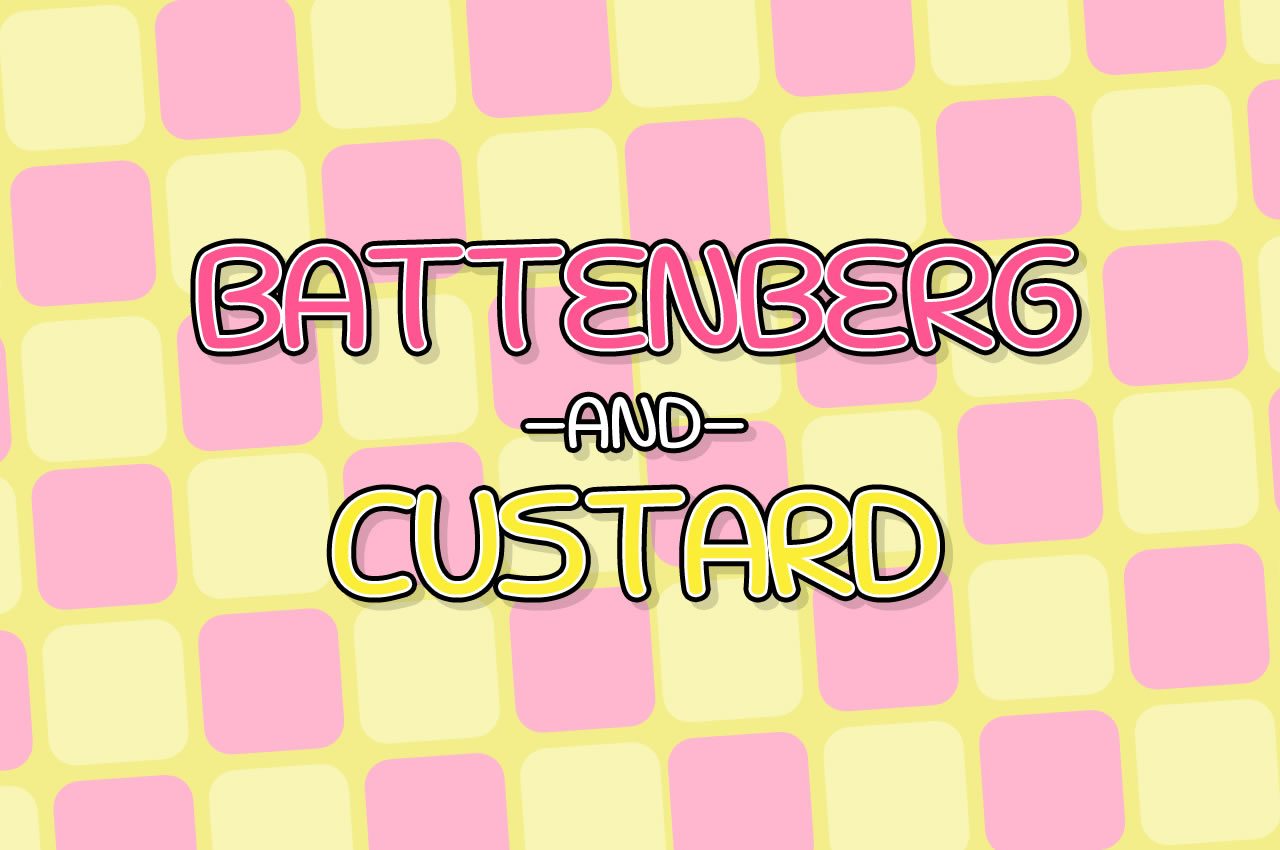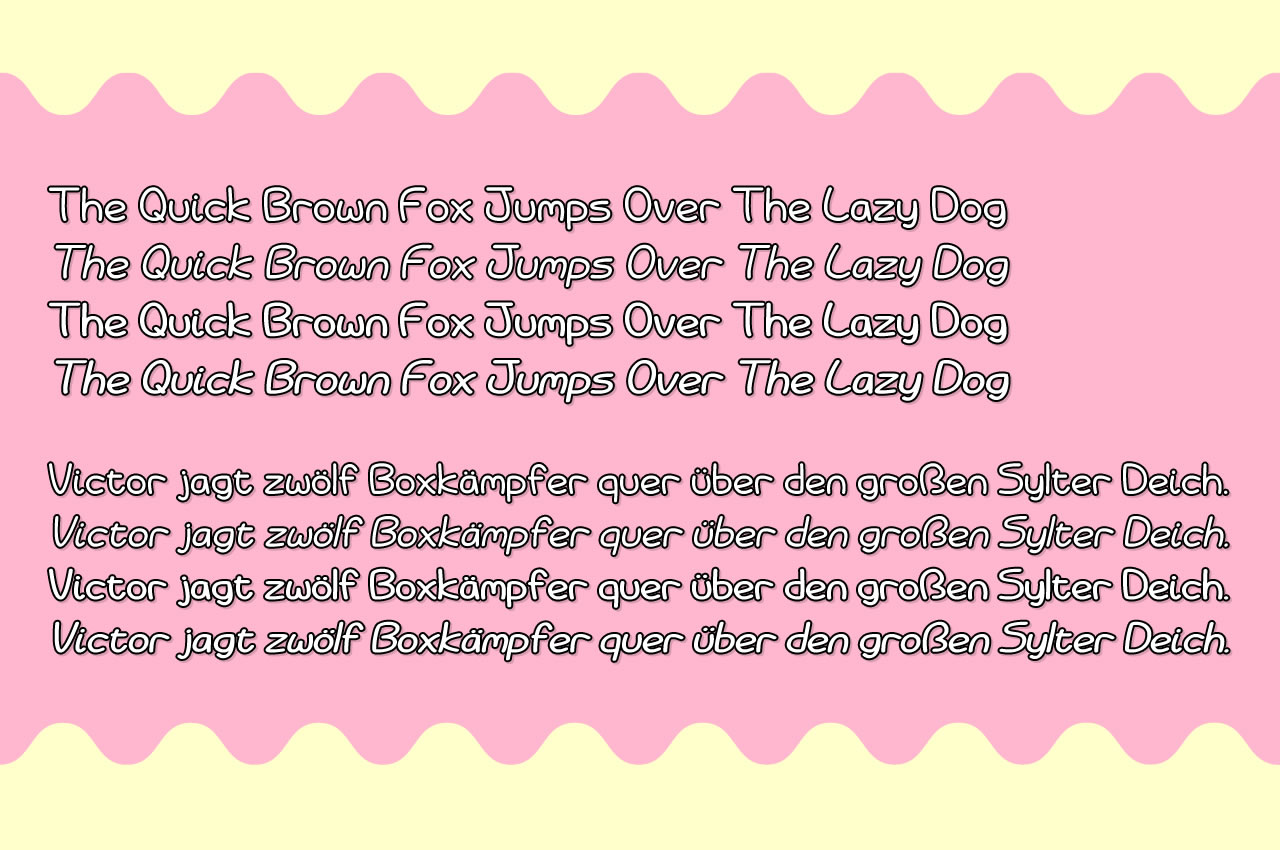
Battenberg and Custard Font
About Battenberg and Custard Font
Battenberg and Custard is a cute handwritten font that evokes a sugary-sweet feeling. This casual sans serif rounded font is ideal for a wide range of fun and friendly designs!